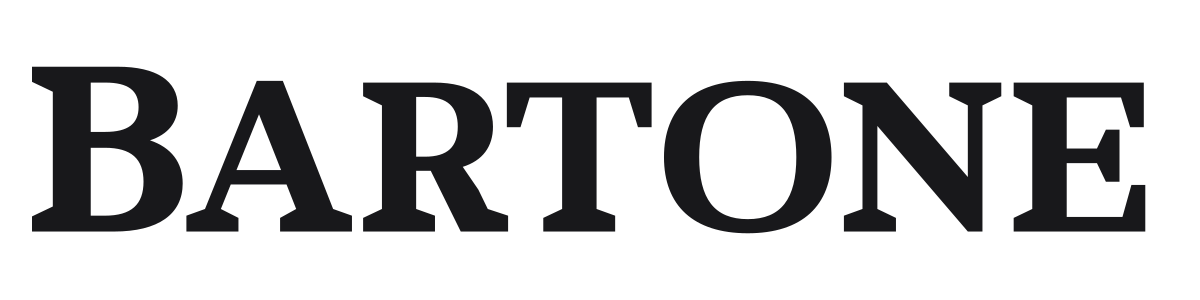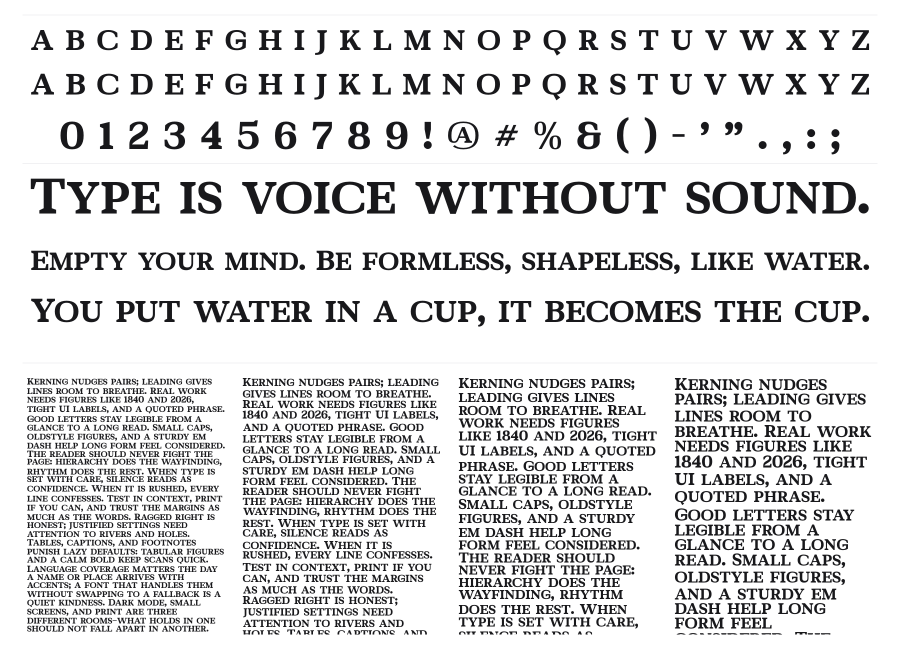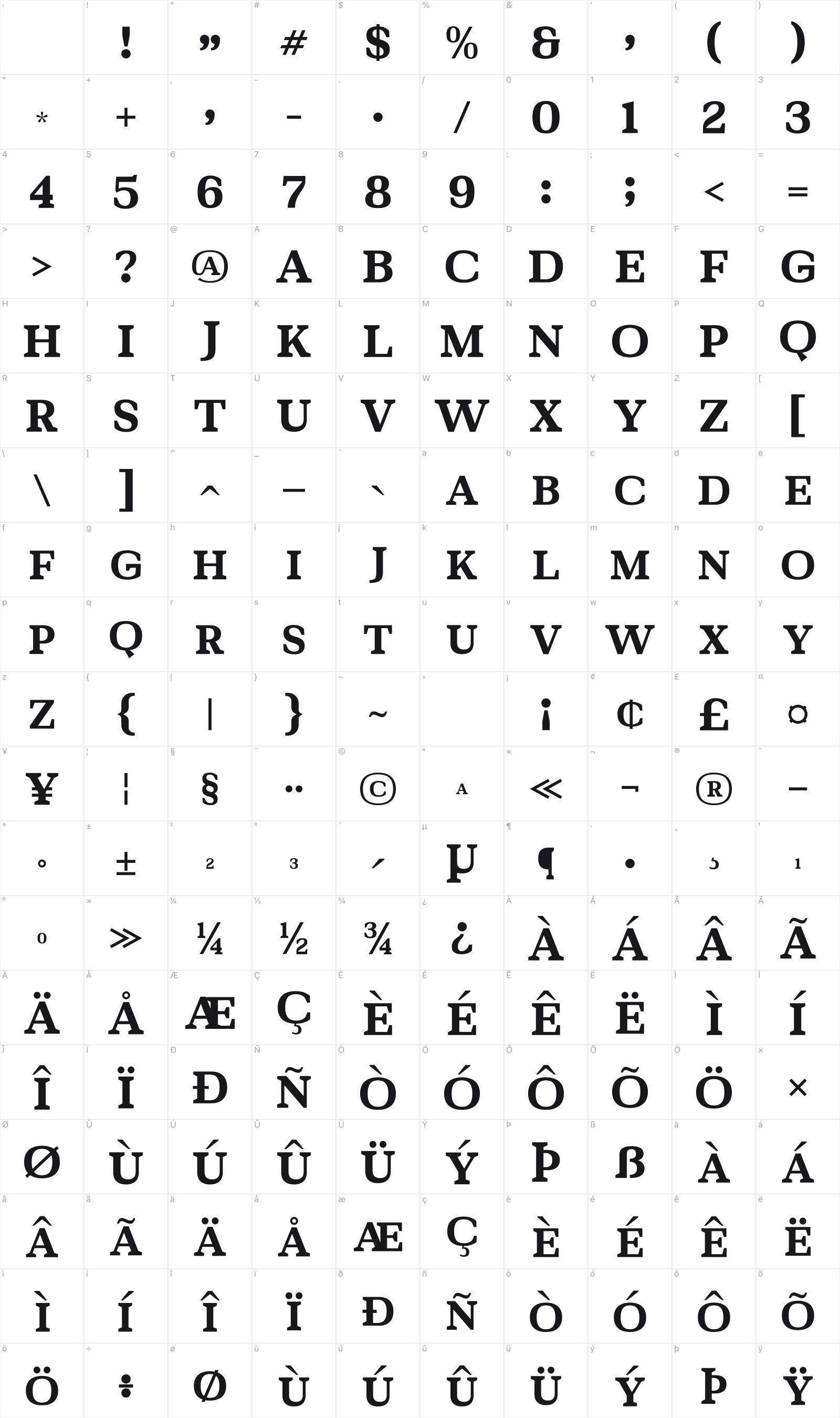
Bartone
Bartone is a bold slab serif with strong stroke contrast and generously bracketed serifs that give it a classic press-era authority. Wide proportions and a large x-height make it hit hard at headline sizes. It carries the DNA of 19th-century Clarendon designs while feeling contemporary enough for modern editorial and branding work.